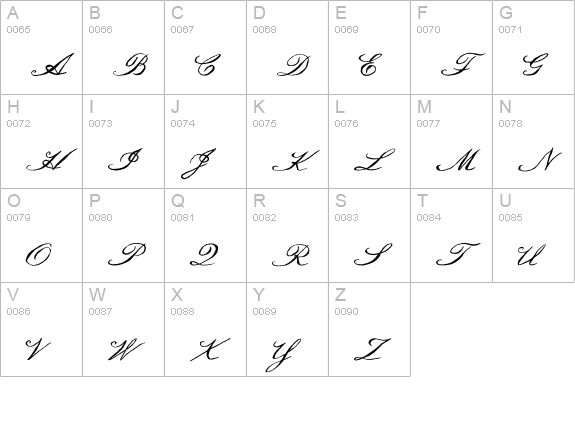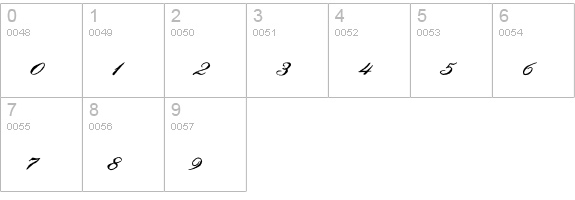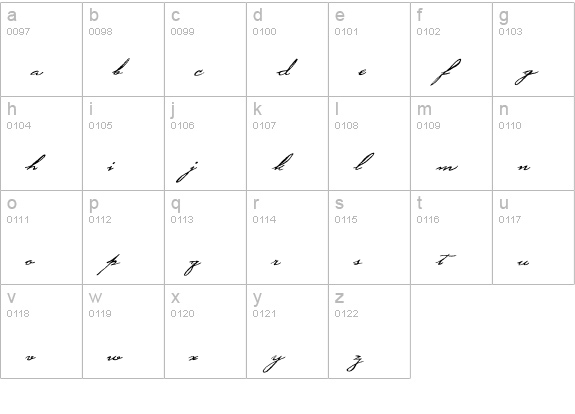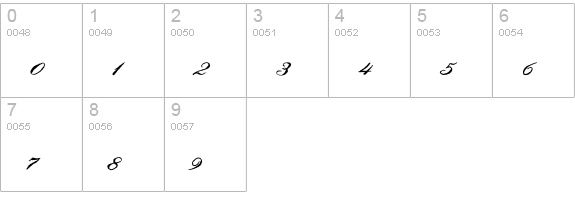
OldGlory font is a classic and elegant typeface that exudes a sense of tradition and timelessness. With its vintage look and feel, this font is perfect for adding a touch of nostalgia to your designs. The intricate details and ornate flourishes of OldGlory make it a standout choice for projects that require a touch of sophistication. What sets OldGlory font apart is that it is not only visually stunning, but it is also completely free to download. Yes, you read that right - you can get your hands on this beautiful font at no cost at all. Simply head over to FontsMarket.com to access this amazing typeface and bring a touch of old-world charm to your next project. Don't miss out on the opportunity to enhance your designs with the timeless beauty of OldGlory font - download it today and let your creativity soar.